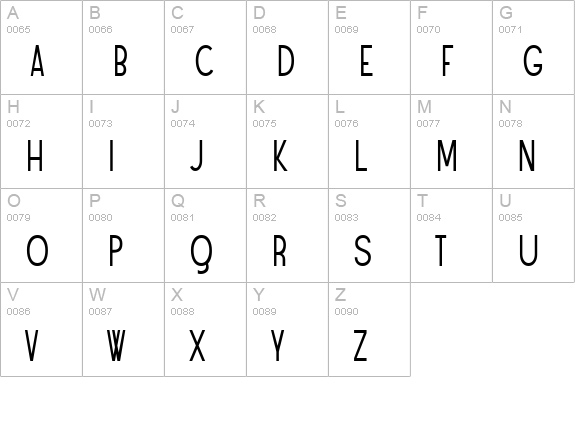
Angostura Font Details
Angostura font is a modern and stylish typeface that exudes elegance and sophistication. With its sleek lines and sharp edges, Angostura is perfect for adding a touch of class to any design project. This versatile font is suitable for a wide range of applications, from branding and advertising to editorial and packaging. What sets Angostura font apart is its unique combination of classic and contemporary elements, making it the ideal choice for both traditional and modern design aesthetics. Its clean and crisp letterforms ensure readability, while its subtle details add an element of visual interest. Best of all, Angostura font is available for free download at FontsMarket.com, making it accessible to designers of all levels. Whether you're working on a personal project or a professional commission, Angostura font is sure to elevate your designs and leave a lasting impression.